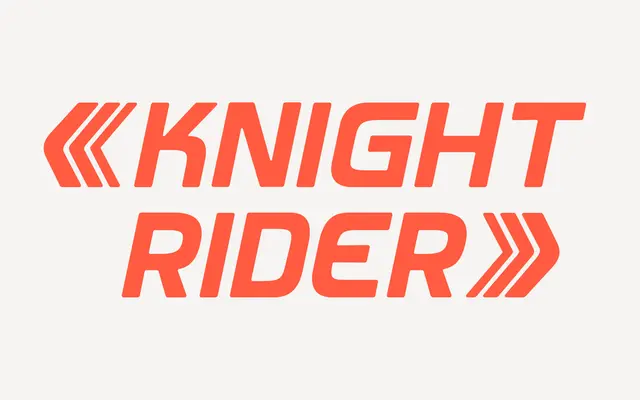
An all-caps retro-futuristic display face in three weights, inspired by Handel Gothic and the graphic language of 1980s television and synthesisers.
Drawn with curvy, near-monoline letterforms at Regular weight, Turbeau builds stroke contrast through Semibold and Bold to give heavier settings a more characterful presence. The family ships with Oblique cuts across all three weights, and a set of wormy alternate letterforms for M, N, W and several others adds a playful, period-appropriate eccentricity. Six styles in total, supplied as OTF and WOFF2.
An all-caps display face with curvy, near-monoline letterforms inspired by Handel Gothic and 1980s TV and synth aesthetics; increasing stroke contrast at heavier weights places it firmly in display territory.